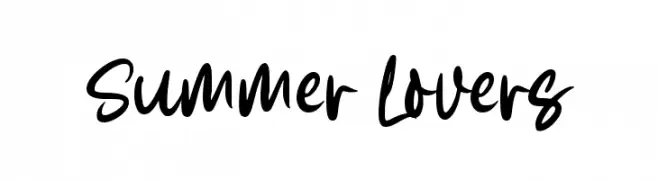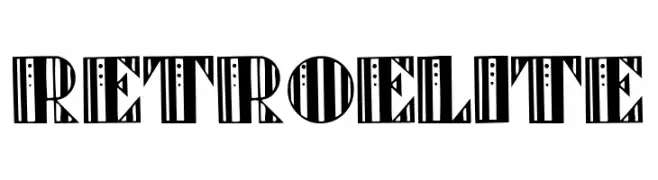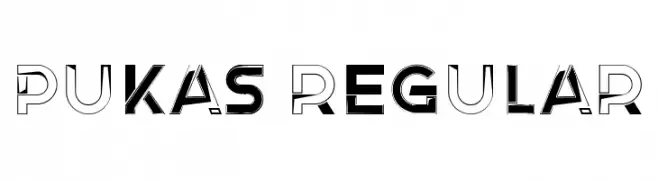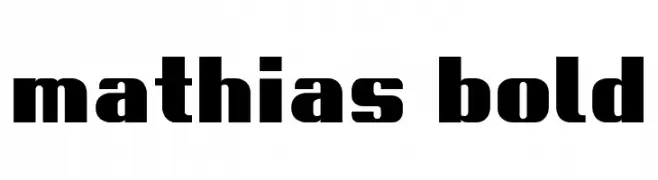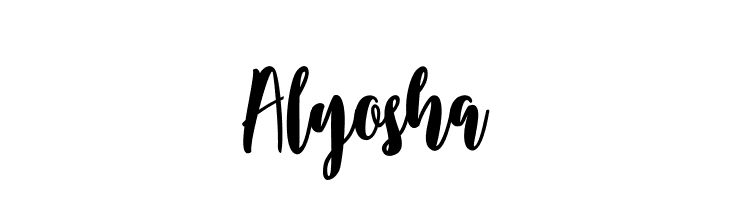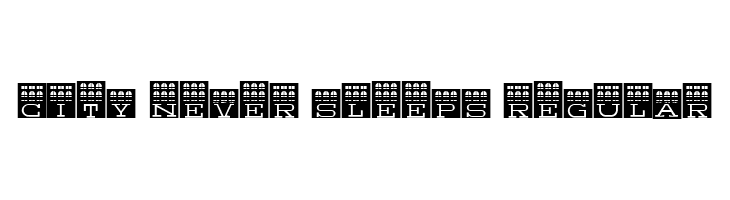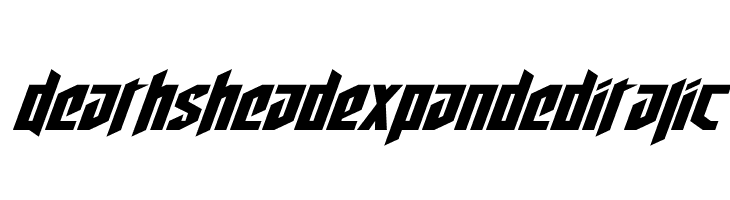
An abstract, fragmented font with sharp angles and irregular shapes, ideal for artistic expression.
A bold, flowing script font with a lively, handwritten style.
A playful, bold handwritten font with a casual and dynamic style.
A bold, italicized font with a futuristic and dynamic style.
A bold, sketch-like handwritten font with dynamic strokes.
A bold, thorny, and aggressive decorative font.
A dynamic and fluid script font with elegant, flowing letterforms.
A bold, decorative font with retro and art deco influences.
A bold, modern font with geometric shapes and striking contrast.
A bold, geometric font with strong, blocky letterforms.